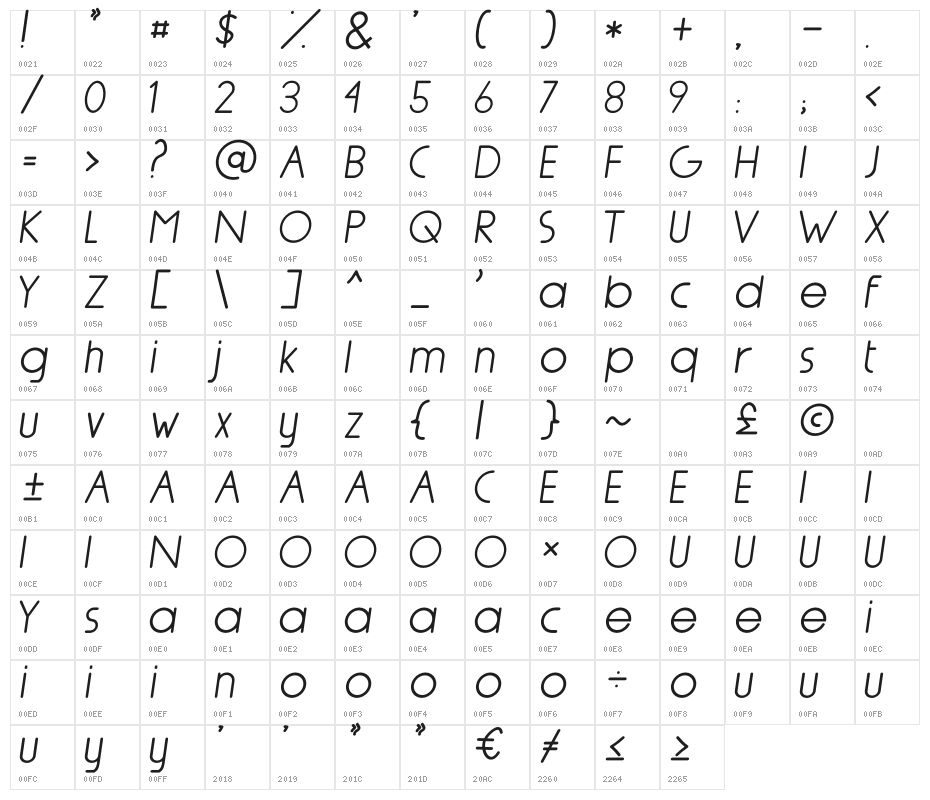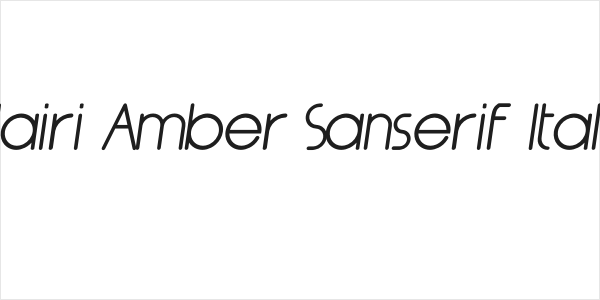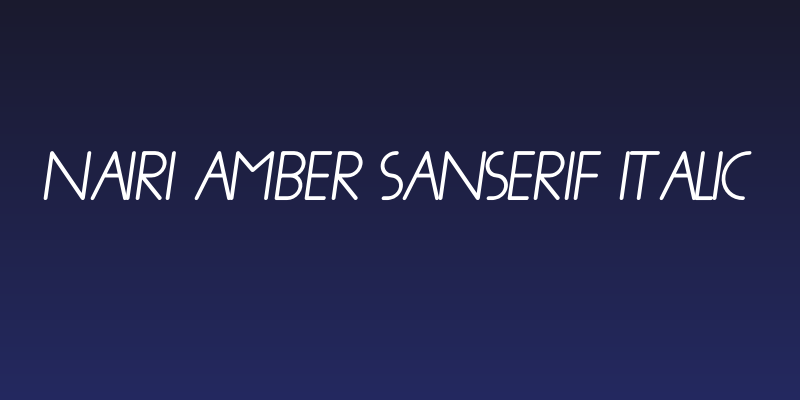
Nairi Amber Sanserif Italic Font
Nairi Amber Sanserif Italic Description
This font features a sleek and modern sans-serif design with an italic slant, giving it a dynamic and contemporary feel. The characters are elegantly rounded, with smooth curves and a consistent stroke width that maintains readability while adding a touch of sophistication. The uppercase and lowercase letters are well-proportioned, and the numerals are clear and distinct. Special characters are included, maintaining the font's cohesive style. This font is versatile, suitable for a variety of design projects that require a modern and stylish appearance.